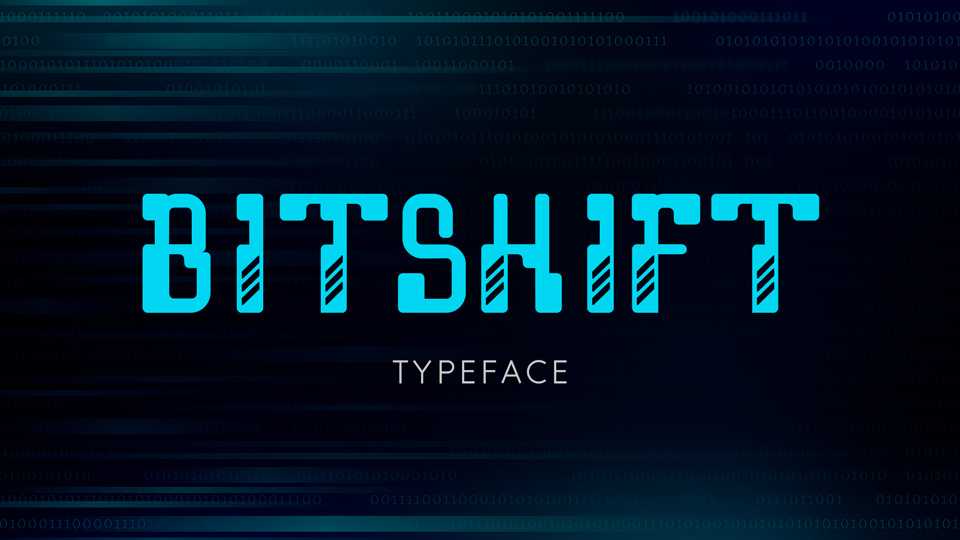
Download Bitshift font, an old school tech inspired display typeface. Bitshift font is perfect for games, posters, retro design and other creative projects.
Designer: Terrence Curran